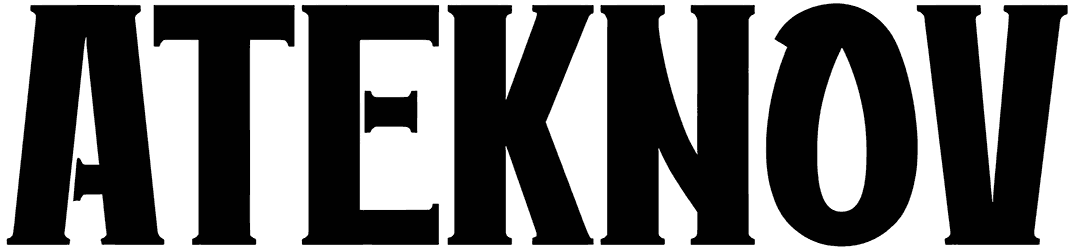
Ateknov Font
It was never so easy to design a vintage piece of art that makes you proud, but now with Ateknov at hand, you’re going to be unstoppable. Once you get to harvest the classic charm of this swash font for your typography, it’ll be enough to level up your various artworks.
Allow this whiskey font to assist you in your shoe store signs, apparel boutique posters, art website headers, and so many other stuff like that, and the glory is yours.